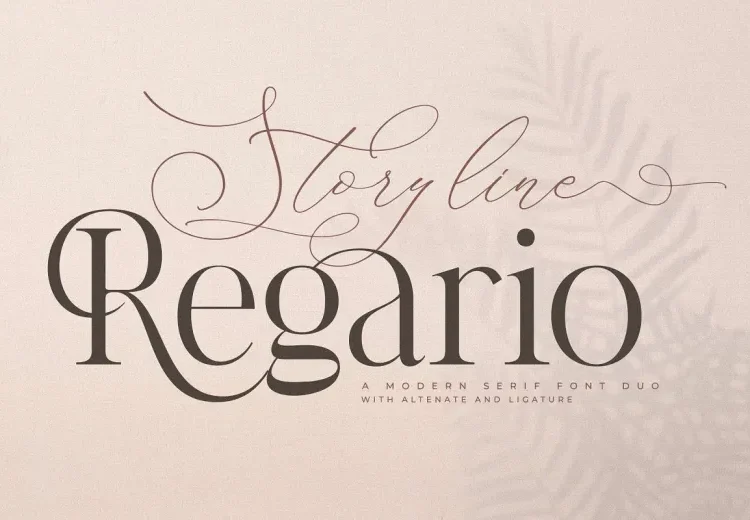
Storyline Regario Font
Storyline Regario Font Duo is an elegant script-serif typeface with a contemporary appeal, designed to elevate your projects with sophistication. Perfect for creating sophisticated logos, movie or book titles, fashion brand letters, clothing quotes, and more, this versatile font duo brings elegance and style to any application.
Whether you’re working on branding, invitations, posters, or any creative design, Storyline Regario Font adds a timeless touch to your work.